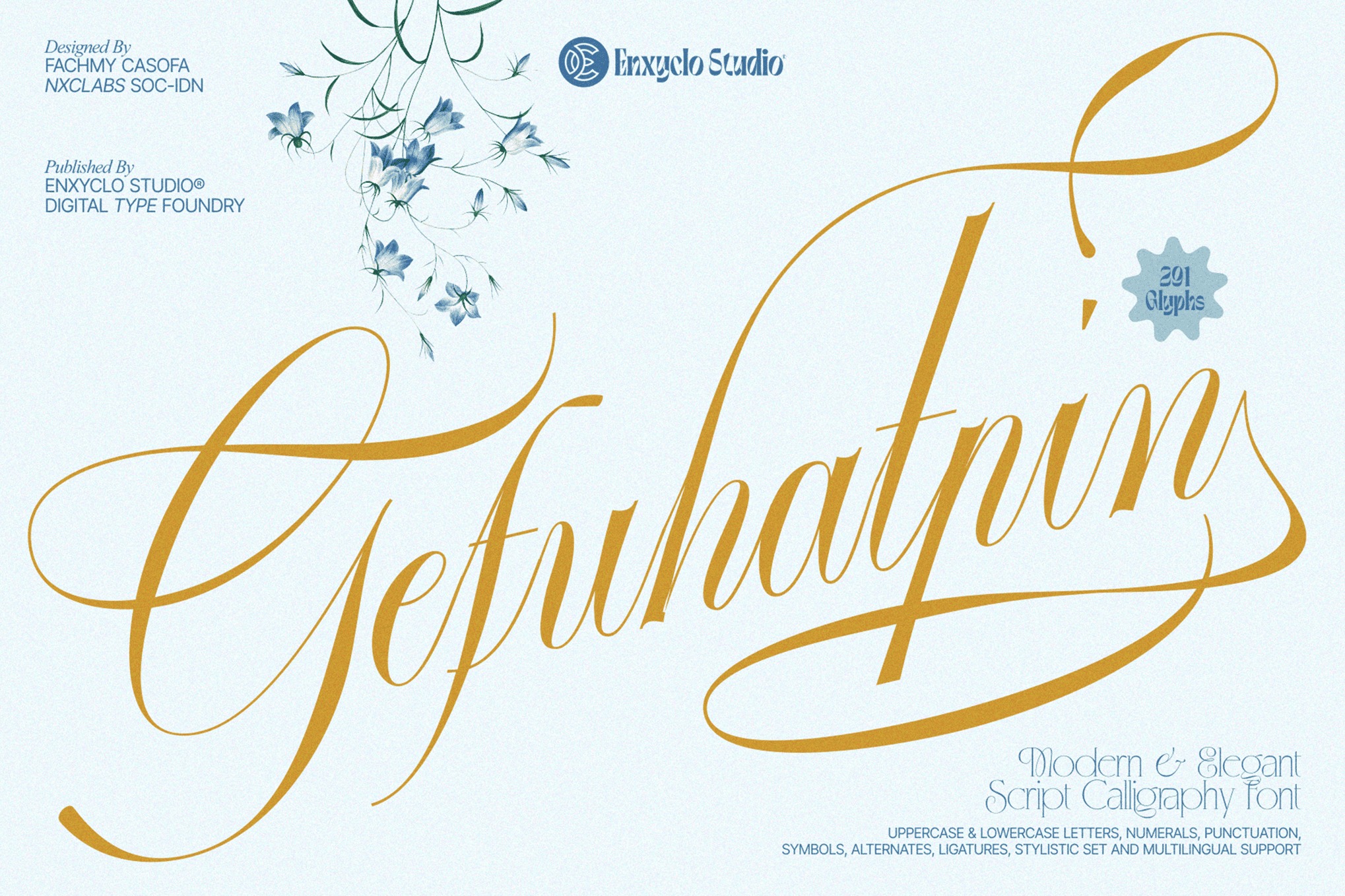
Gefuhatpin Font
Gefuhatpin Font is a distinctive and expressive font crafted to bring personality, structure, and creative energy into your projects. Gefuhatpin Font is a modern and timeless calligraphy typeface designed to express the true essence of luxury, elegance, and sophisticated beauty. With its flowing curves, graceful strokes, and refined rhythm, this typeface offers a sumptuous and high-end aesthetic designed for brands that want to feel rich and glamorous.
Combining modern calligraphy with a luxurious visual style, GEFUHATPIN creates a perfect harmony between bold presence and delicate elegance. Each letterform is meticulously crafted to enhance your logo, brand identity, fashion campaign, or boutique packaging with a sense of exclusivity and artistic refinement. Its fluid script and elegant character make it an ideal tool for creating an aesthetically pleasing visual experience that is both contemporary and timeless.
Inspired by the world of fashion, beauty, skincare, and cosmetics, GEFUHATPIN adds a touch of glamour and sophistication to every design. Whether used for high-end logos, elegant product packaging, or premium editorial layouts, this script typeface transforms simple typography into a luxurious statement full of personality and style.
Designed for creatives who value beauty and brand excellence, GEFUHATPIN is much more than just a script font; it is a visual signature of modern luxury, elegant storytelling, and high-end design aesthetics.